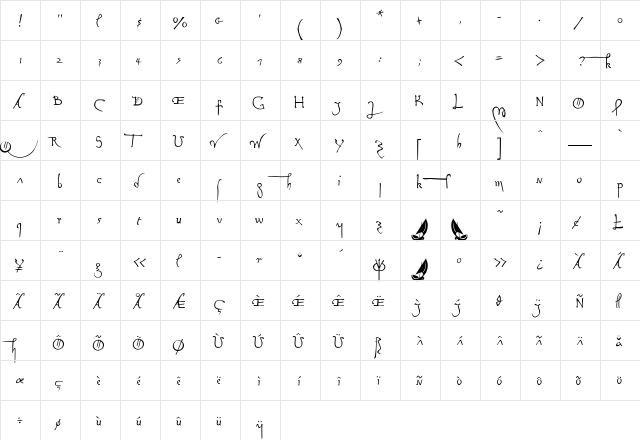
LeonardoHand Regular
| Foundry | Judith Sutcliffe: The Electric Typographer / |
| Year | 1989 |
Design Context for LeonardoHand Typeface
LeonardoHand flows with the natural rhythm of handwritten lettering, making it ideal for designs that call for warmth and personal expression.
Font Pairing: Combine LeonardoHand with a simple geometric sans for maximum contrast — the tension between flowing curves and clean structure is a classic typographic pairing.
Pro Tip: Pair LeonardoHand with a clean sans-serif for supporting text. The contrast between fluid script and geometric structure creates an elegant typographic hierarchy.